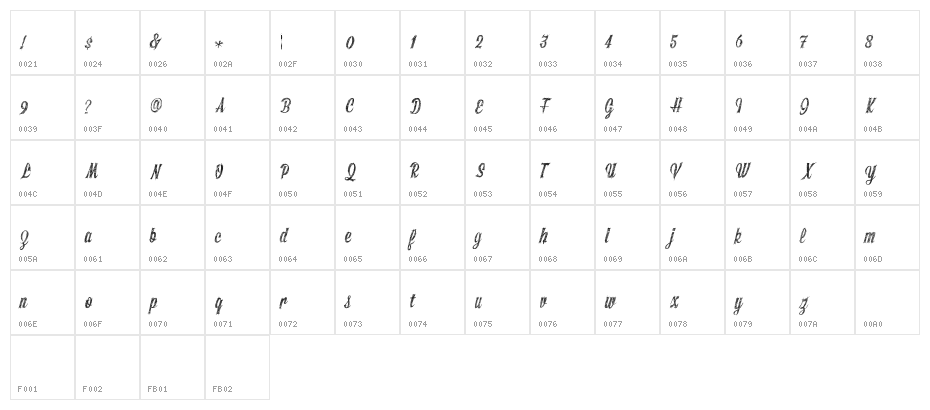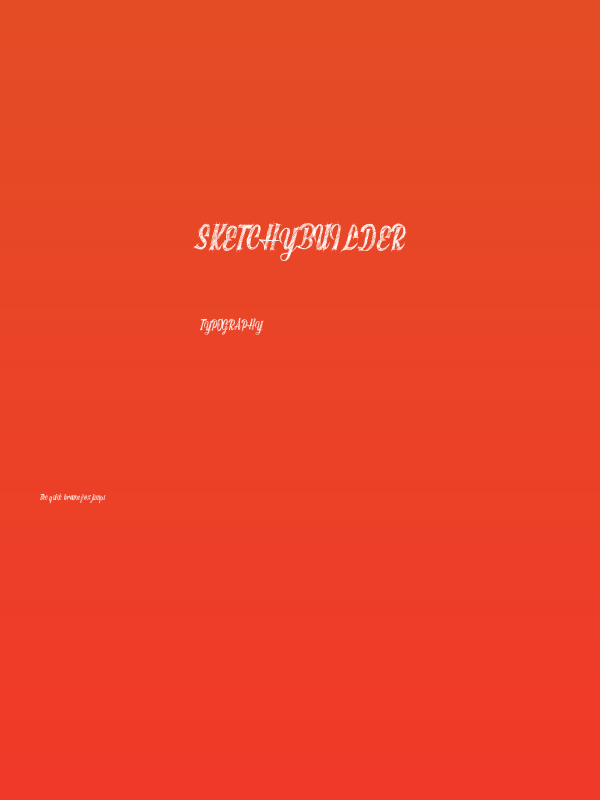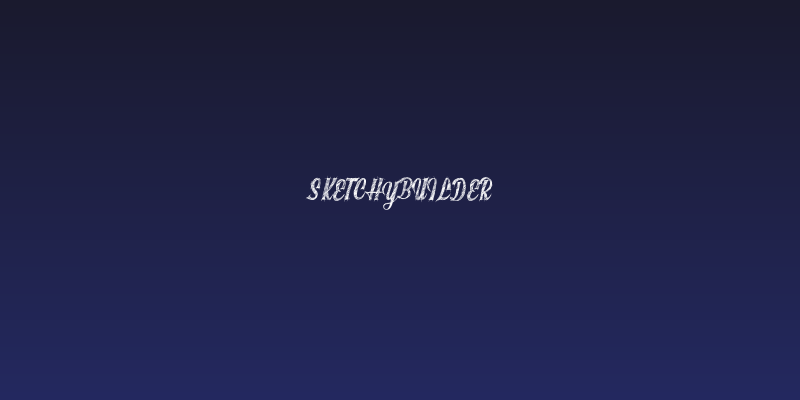
SketchyBuilder Font
SketchyBuilder Description
This font features a dynamic and sketchy style, characterized by its hand-drawn appearance with irregular strokes and a slightly chaotic feel. The letters are slanted, giving a sense of movement and energy, while the rough edges and uneven lines add a raw, artistic touch. The uppercase and lowercase letters maintain a consistent style, with the uppercase being more pronounced and bold. Numbers and special characters follow the same sketchy aesthetic, ensuring a cohesive look across all elements. This font is ideal for projects that require a creative and informal vibe.
| Use Case | Logos, Posters, Creative Projects |
| Proposed Projects | Ideal for artistic projects, informal branding, creative posters, and unique invitations. |